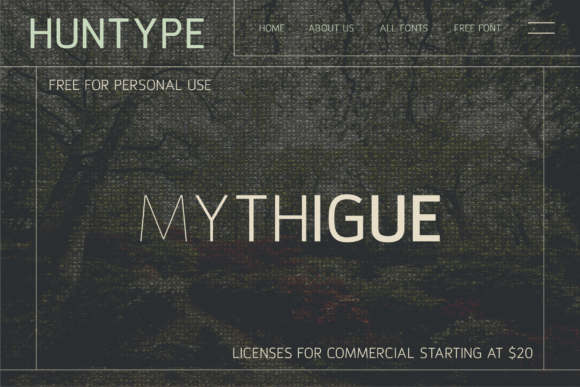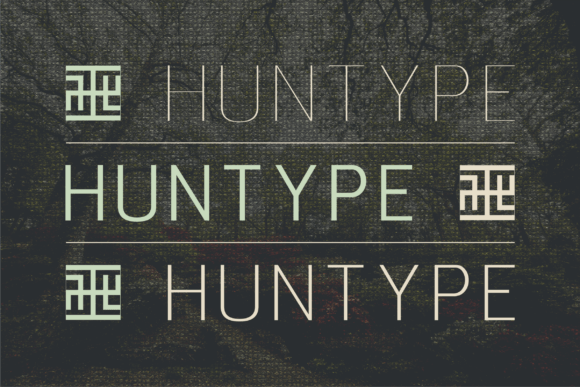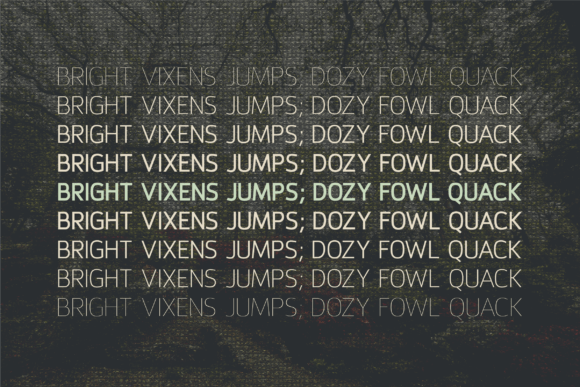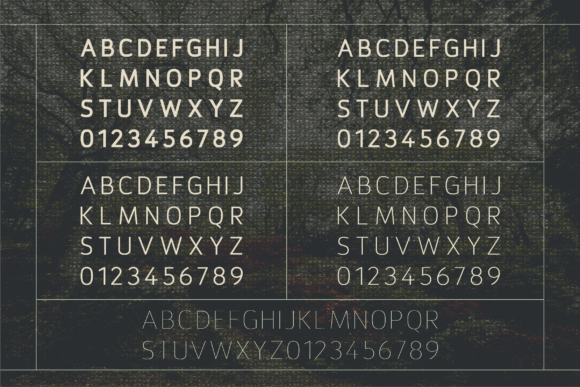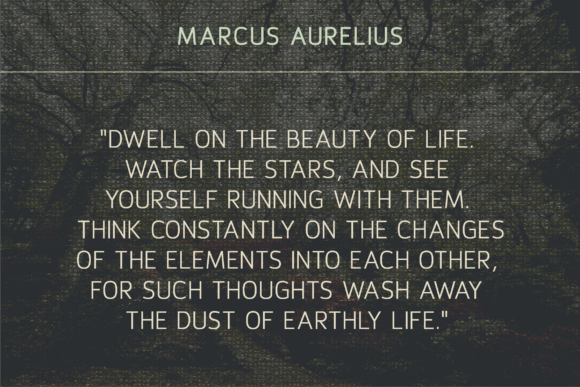
Introduction to Mythigue Font
As a designer, there’s nothing quite like the thrill of bringing a creative vision to life. Whether you’re working on a high-end branding project or a personal passion project, the right font can make all the difference. And when it comes to making an impact, the Mythigue Font family is an unbeatable choice.
With its sleek, modern aesthetic and five distinct weights, the Mythigue Font family offers a level of versatility that’s hard to find in other design resources. From the delicate THIN weight to the bold and impactful BLACK, each font is crafted with precision and care to provide the perfect solution for your creative project. And with a free download available, you can start exploring the possibilities of the Mythigue Font family today.
Whether you’re working on a design project that requires a transparent background or a high-quality visual identity, the Mythigue Font family is sure to deliver. With its seamless blend of sophistication and contemporary style, this font family is a valuable asset for any designer looking to elevate their work and take their creative projects to the next level.
Key Features of Mythigue Font
- Mythigue Font offers a transparent background, allowing for seamless integration with various design elements.
- Includes 20 unique characters, including uppercase and lowercase letters, numbers, and special symbols.
- Designed with a bold, elegant style, perfect for use in logos, typography, and other creative projects.
Honest Review: Mythigue Font
- ✨ High-quality design that’s perfect for fantasy and mythological-themed projects
- ✨ A wide range of characters, including symbols and special characters
- ✨ Transparent background, making it easy to use in various design scenarios
- ⚠️ Limited font sizes, which might not be ideal for certain design applications
Overall, I’m impressed with the Mythigue Font. It’s a great design resource for personal projects, and its high quality makes it a pleasure to work with. While it has its limitations, it’s definitely worth considering for your next creative project.
Tips for Getting the Most Out of Mythigue Font
For the best results, use the Mythigue Font in conjunction with other high-quality design resources. Experiment with different font sizes, colors, and layouts to create visually appealing designs. The transparent background of the Mythigue Font makes it easy to combine with other design elements.
The Mythigue Font is perfect for creative projects, such as graphic design, digital art, and typography. It’s also great for branding and marketing materials, like business cards, logos, and brochures. The high-quality design resource is versatile and can be used in a variety of applications.